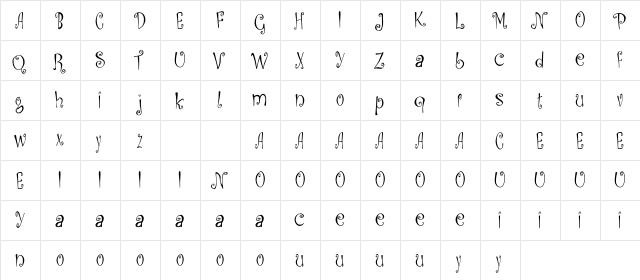
Keriting Regular
| Foundry | Idesain Creative |
| Designer | Mr.Audiprasetya |
Design Context for Keriting Typeface
Keriting is a composed and adaptable typeface that performs quietly and consistently across a wide range of design contexts.